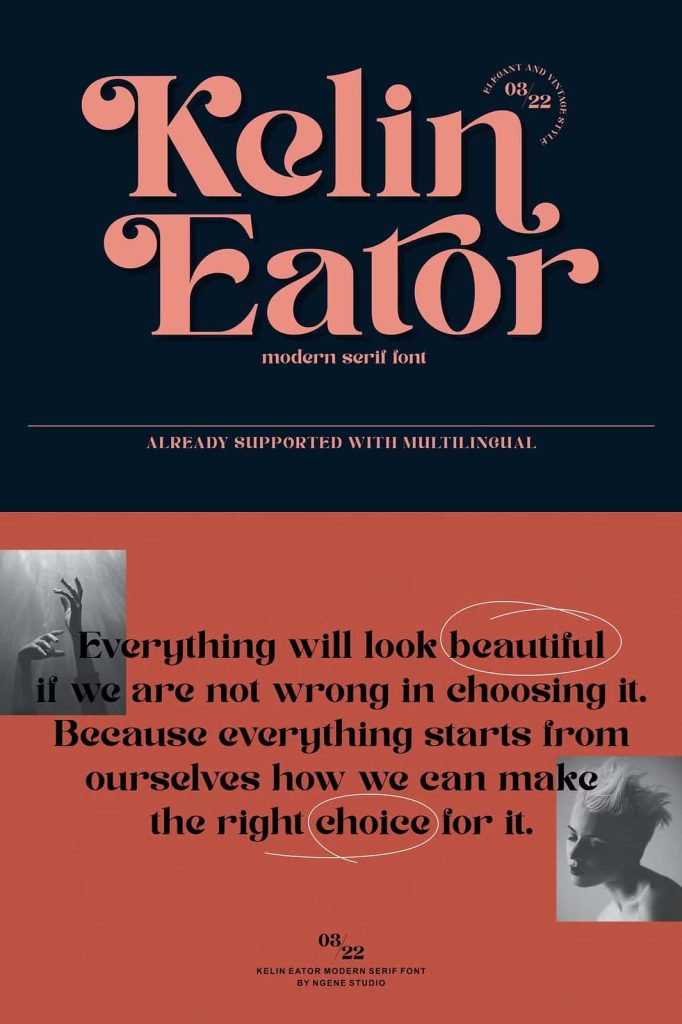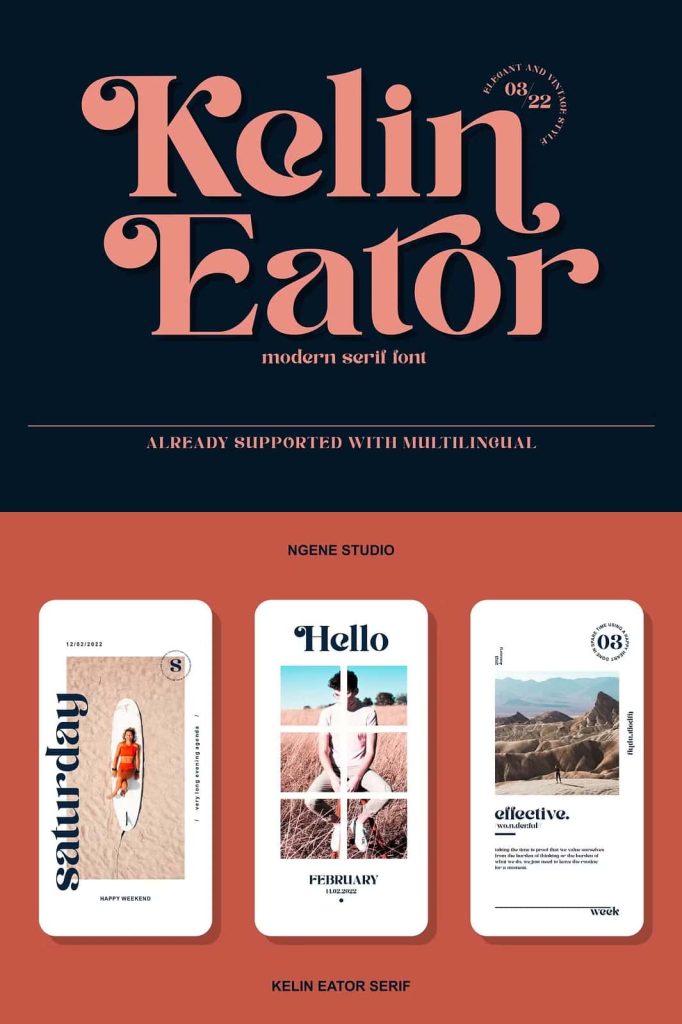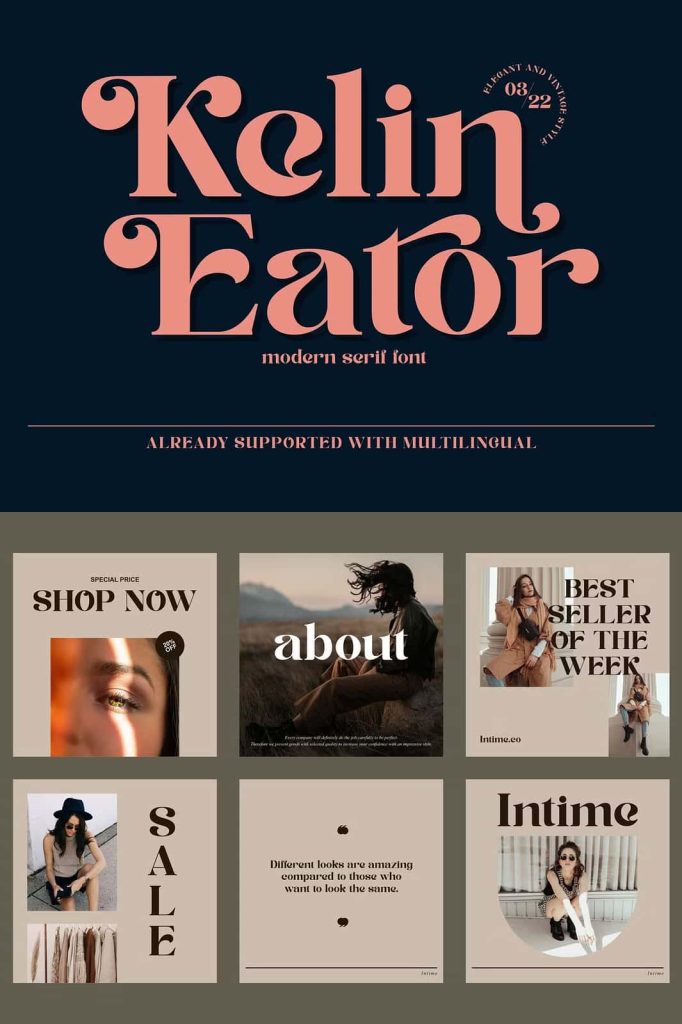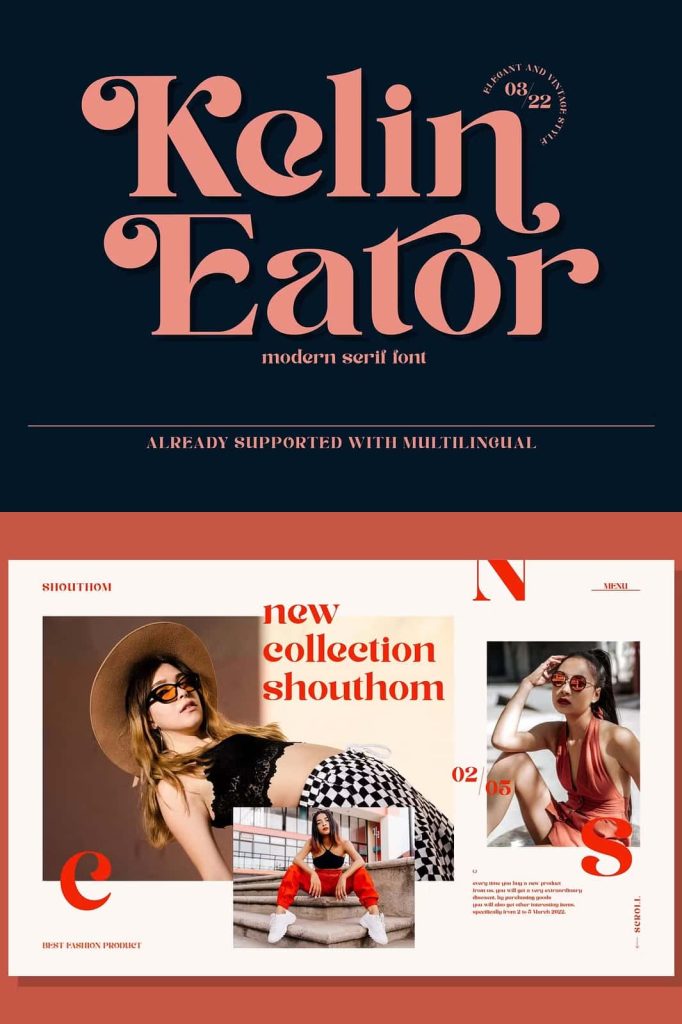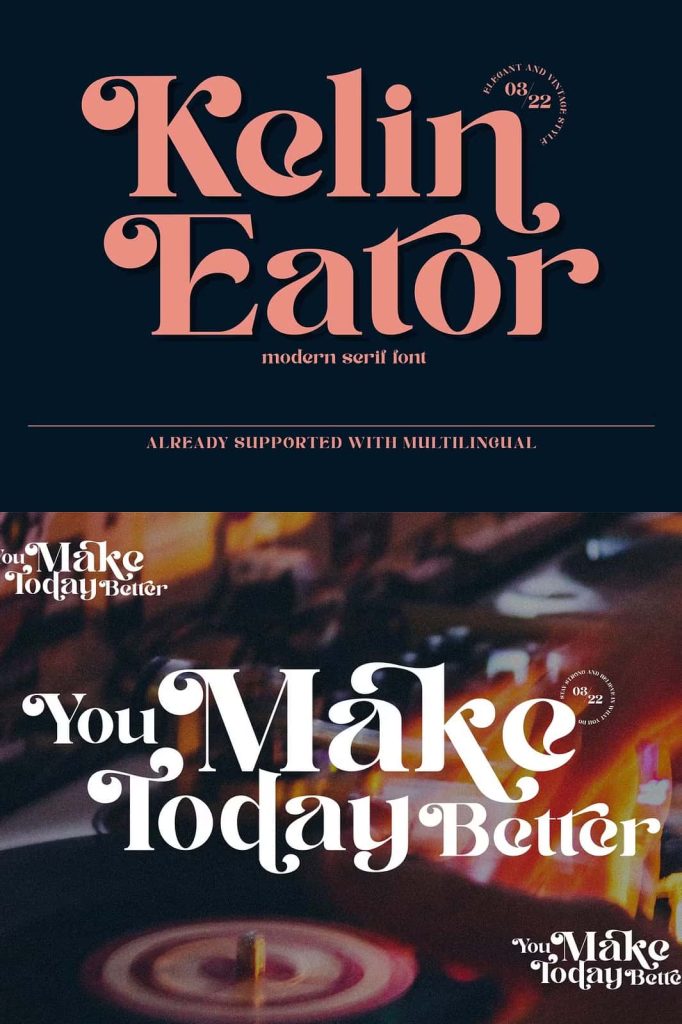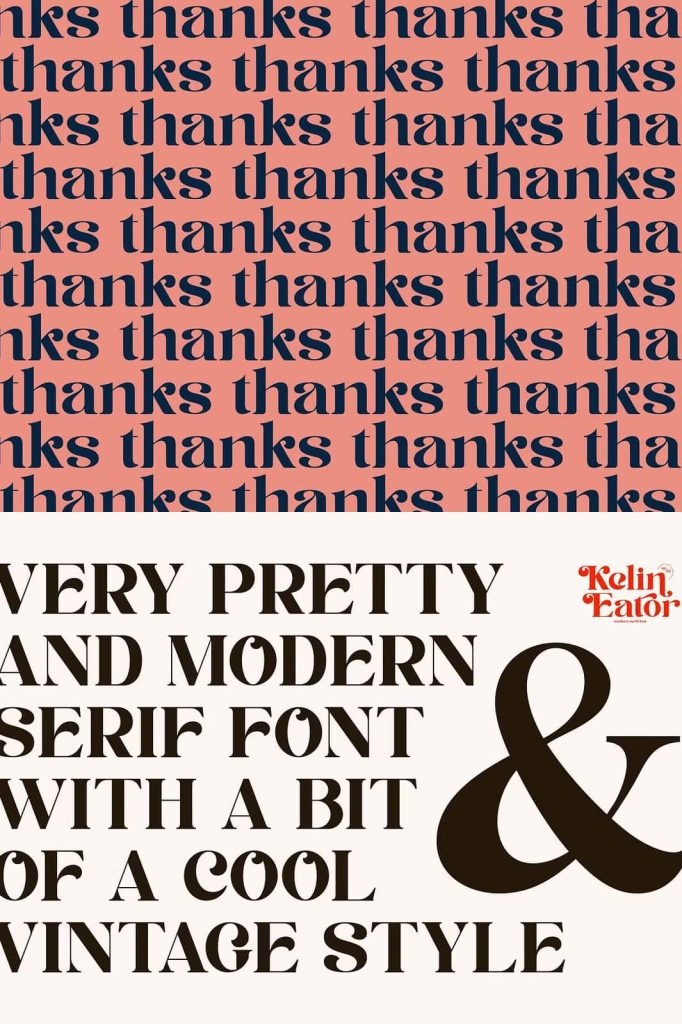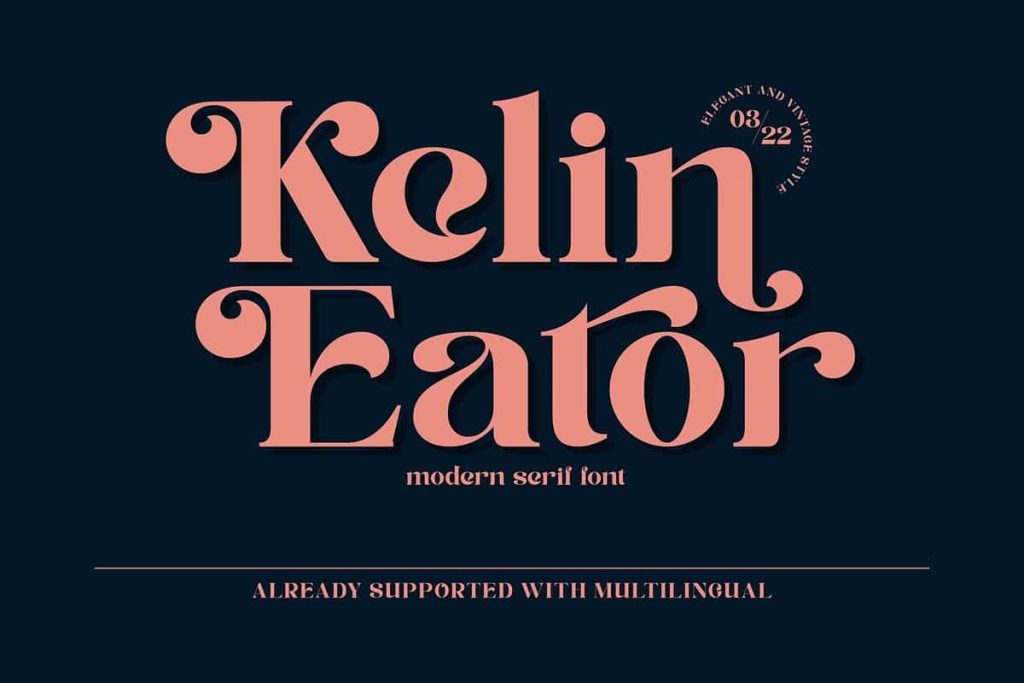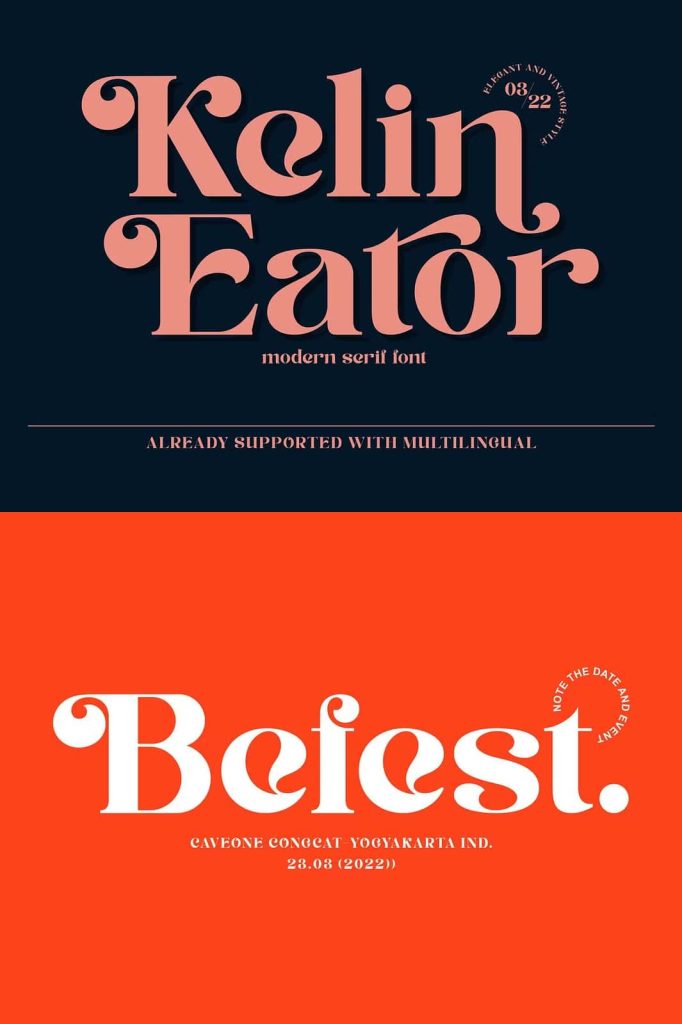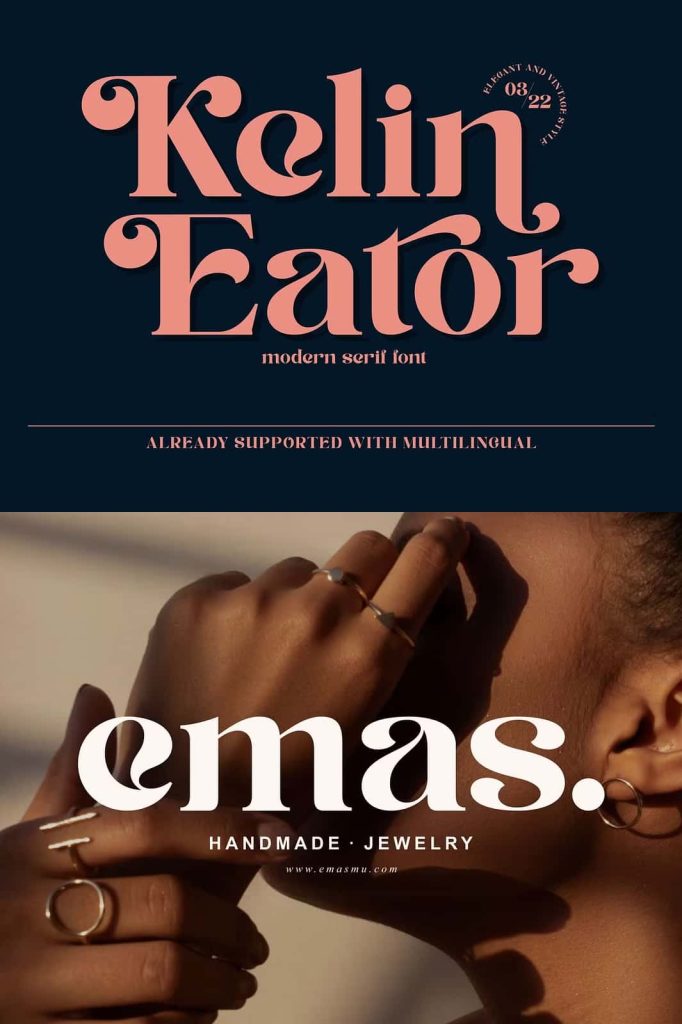
Kelin Eator Vintage Serif Font with Elegant Modern Style
Kelin Eator is a vintage serif font that blends timeless elegance with a refined modern touch. This typeface draws inspiration from a wide variety of classic letterforms and transforms them into a powerful design tool for today’s creative needs. With strong character shapes, balanced proportions, and expressive details, Kelin Eator helps you build designs that feel confident, stylish, and memorable.
This font does more than decorate your text. It strengthens your brand identity, enhances visual storytelling, and brings a distinctive personality to every project. Whether you design for digital platforms or print materials, Kelin Eator delivers clarity, beauty, and impact in every letter.
Elegant Vintage Character with Modern Precision
Kelin Eator captures the charm of vintage typography while maintaining a clean and contemporary structure. Each letterform features carefully crafted serifs, smooth curves, and confident strokes that command attention without overwhelming your layout. The font balances decorative details with readability, allowing you to create bold headlines, stylish logos, and sophisticated branding materials.
The elegant structure supports both large display sizes and refined text compositions. Use it to create strong visual hierarchies, dramatic titles, or subtle luxury accents. Kelin Eator adapts easily to various design concepts while maintaining its distinctive vintage serif identity.
Built-In Alternates for Creative Freedom
Kelin Eator includes several built-in alternates that expand your creative possibilities. These alternative characters allow you to customize letter combinations, refine wordmarks, and craft unique typographic compositions. You can quickly switch between styles to achieve a more decorative look or a cleaner, more minimal appearance.
These alternates empower designers to experiment and develop original branding elements without searching for additional typefaces. By combining standard characters with stylistic options, you can create logos and headlines that feel exclusive and tailored to your vision.
Perfect for Logo and Branding Design
Kelin Eator works exceptionally well for logo design and brand identity projects. Its vintage serif structure adds authority and heritage, while its modern touch keeps your brand relevant and forward-thinking. Use this font to craft powerful logotypes, monograms, and signature brand marks that stand out across industries.
From boutique fashion labels to premium lifestyle brands, Kelin Eator enhances visual identity with elegance and confidence. The strong serif details help your logo remain recognizable across print materials, digital platforms, and product packaging.
Optimized for Social Media and Digital Content
Create eye-catching Instagram stories, Instagram posts, and social media graphics with Kelin Eator. The font’s stylish personality instantly elevates your content and increases visual appeal. It helps you design engaging quotes, promotional banners, and branded templates that capture attention in crowded feeds.
Kelin Eator also performs beautifully in web design. Use it for website headers, landing page titles, and editorial sections to add sophistication and clarity. Its structured letterforms maintain readability while delivering a strong aesthetic statement.
Ideal for Print, Packaging, and Editorial Projects
This vintage serif font enhances magazines, posters, invitation cards, and printed materials with a refined and artistic touch. Designers can use Kelin Eator to create elegant wedding invitations, luxury event stationery, and stylish promotional posters that leave a lasting impression.
It also brings value to packaging design, product labels, badges, and clothing designs. The font’s classic yet modern character supports premium branding and helps products look more exclusive and desirable. When applied to labels and packaging, Kelin Eator communicates quality and craftsmanship.
Versatile Applications Across Creative Industries
Kelin Eator adapts to a wide range of creative fields. Use it for editorial layouts, logo types, merchandise branding, typography-based posters, and marketing materials. Its flexibility allows designers to maintain a consistent visual identity across multiple platforms while still exploring creative variations.
Whether you work on branding, advertising, digital media, or print production, this vintage serif font supports your ideas and strengthens your visual message.
Make Your Designs Stand Out
Kelin Eator transforms ordinary layouts into distinctive visual experiences. It adds character, depth, and elegance to your typography while maintaining a modern edge. By choosing this vintage serif font, you invest in a versatile design asset that helps your projects look different, more refined, and more attractive.
Elevate your creative work with Kelin Eator and build designs that communicate confidence, beauty, and timeless style.